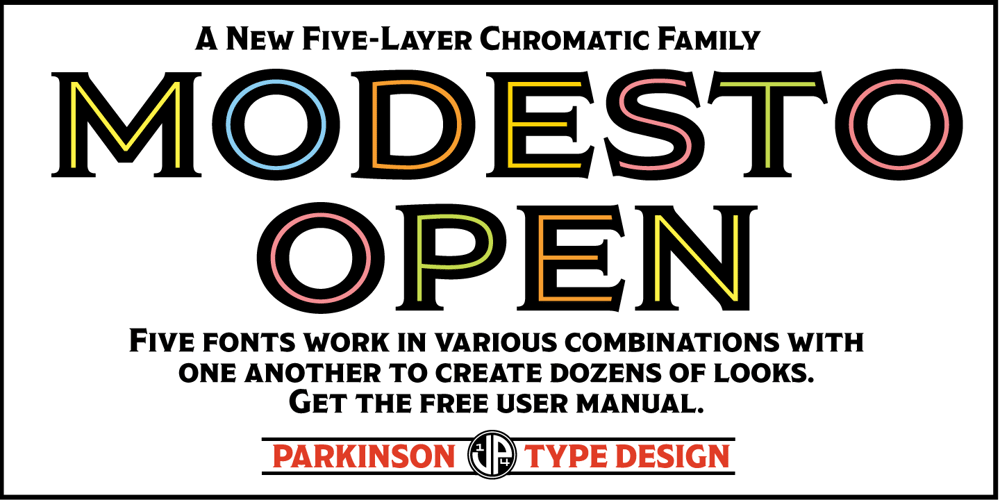
Modesto Open
Modesto Open font
Modesto Open Font Family was designed by Jim Parkinson and published by Parkinson. Modesto Open contains 5 styles and family package options. Modesto Open is now a Chromatic Font Family. The old font Modesto Open has been improved, renamed Modesto Open Primary and joined by four new fonts that ornament and augment the Primary font in many different ways. All Caps. Modesto is a loose-knit group of Font Families based on a signpainting lettering style popular in the late-19th and early-20th centuries. It evolved from the lettering I used for the Ringling Bros. and Barnum & Bailey Circus Logo. The Modesto family was not planned. It just happened, a few fonts at a time over about fifteen years. In 2014 seven new Italic fonts and two Chromatic families were added.